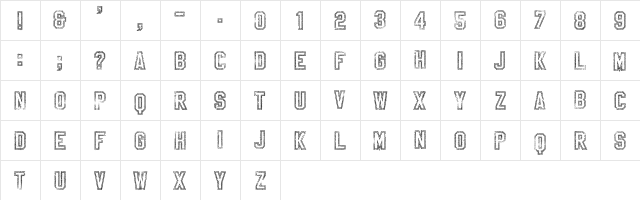
Complete Sablon Up OldOutline glyph index. Displaying only characters natively supported by Sablon Up OldOutline font.
Sablon Up is built around its visual character rather than neutral utility - its distinctive forms are designed to make an impression at display sizes.
Font Pairing: Pair with a clean neutral sans-serif for body copy to let Sablon Up's character lead without overwhelming the composition.
Pro Tip: Use Sablon Up exclusively at display sizes - it was designed to be seen, not read at length. Let a neutral companion handle body copy.